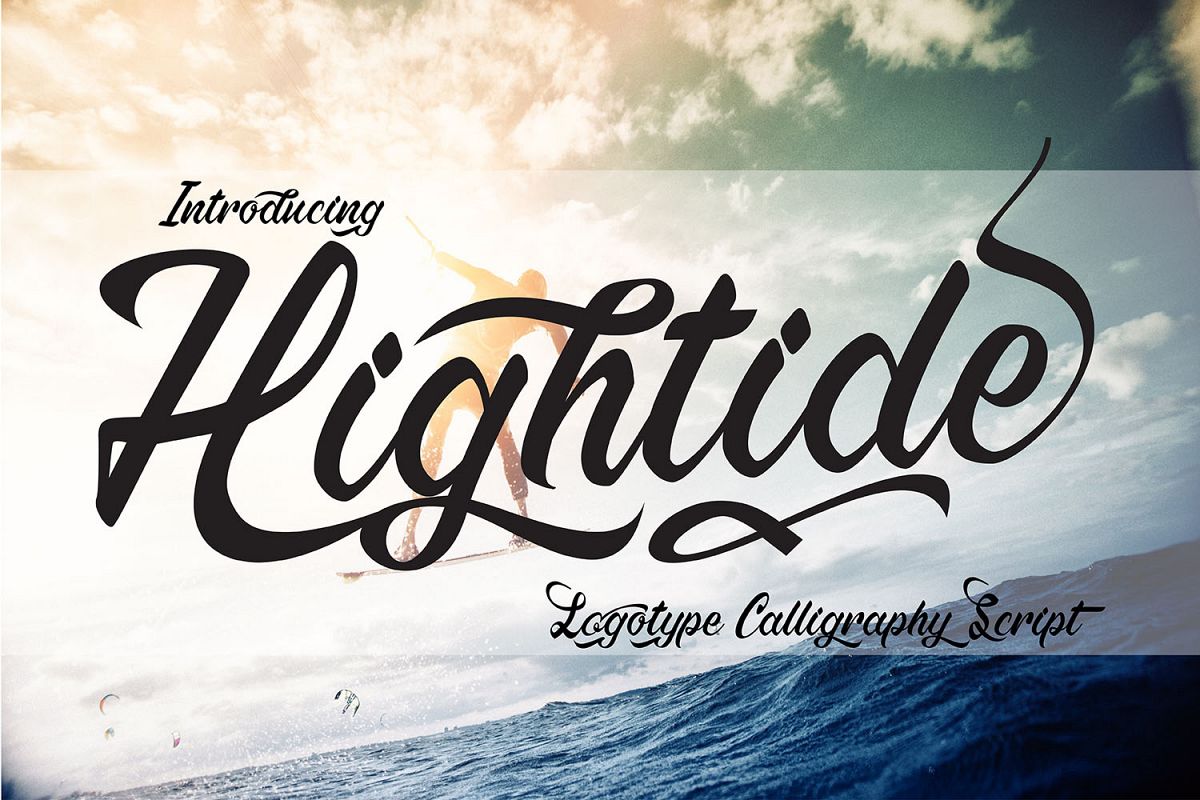
Hightide
Introducing: Hightide !
A casual caligraphy  logotype font, This
is a great option for giving your design an awesome logos. The Hightide  is modern bold
style that come with many alternates that allow you  for expressing fun and a relaxed vibe in your
custom lettering designs in vintage and modern style expression.
Hightide is perfect for branding projects, product packaging or
simply as a stylish text overlay to any background image, good looking for
poster, clothing, megazine, website, and other design project.
The Hightideglyph containing A-Z Uppercase, a-z Lowercase, numeric and punctuation,